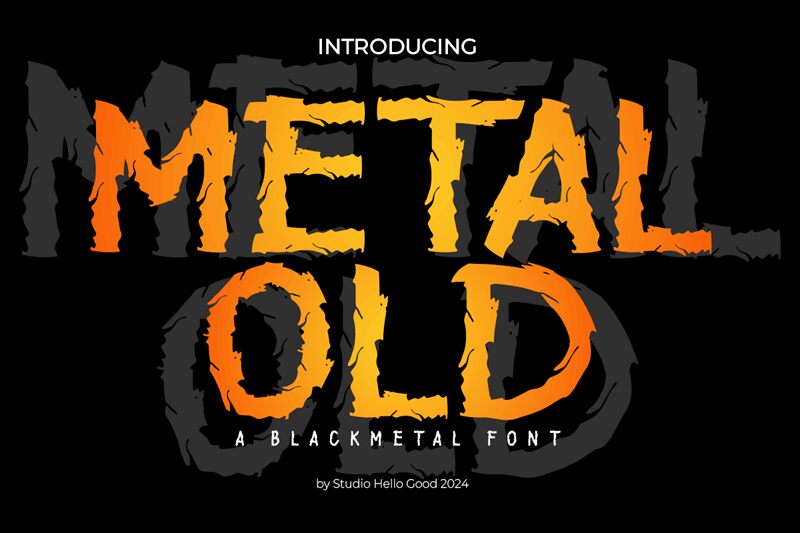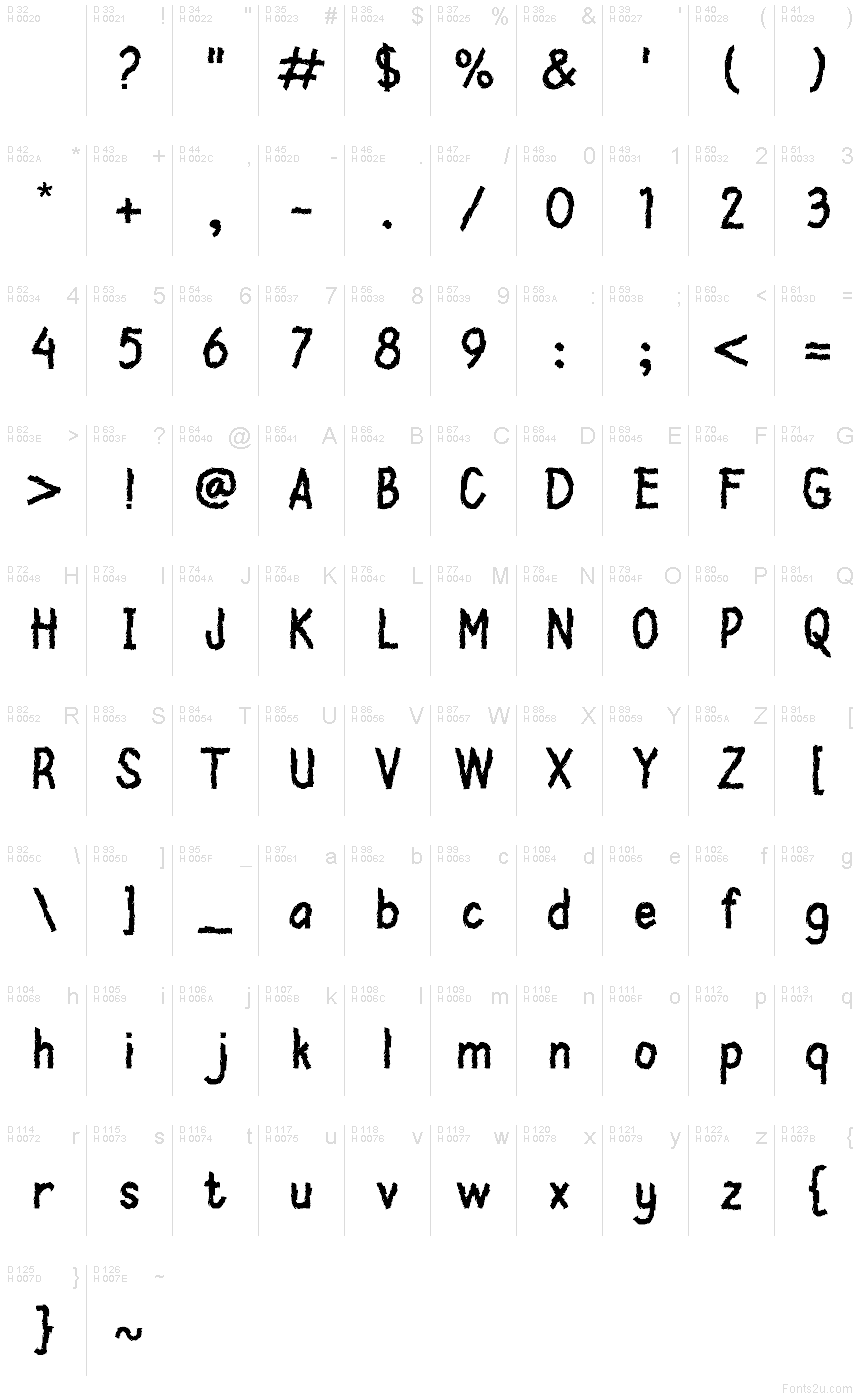
Metal Old
Metal Old font by Studio Hello Good is a free scary display typeface. Its letters look scratched out of black steel—jagged, splintered, and a little warped—so the words feel like they’ve clawed their way onto the page. The rough, inky edges create a gritty texture that reads instantly ominous, while the chunky forms keep it loud and legible at a glance.
Using Metal Old, headlines hit with slasher-movie energy: horror posters, haunted house signage, metal band merch, Halloween flyers, creepy game titles, and thriller book covers all benefit from its torn, feral rhythm. This free font shines when set big with a touch of letterspacing. Pair it with a clean condensed sans for body copy to keep the chaos in the headline where it belongs.